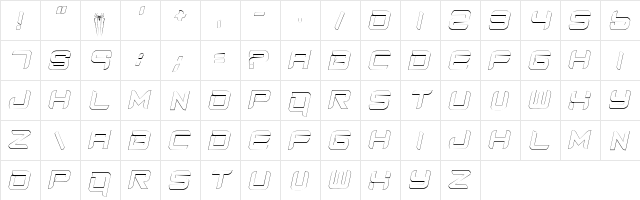
Amazing Spider-Man toile slant Regular
| Foundry | P. A. Vannucci |
| Designer | P. A. Vannucci |
Design Context for Amazing Spider-Man toile slant Typeface
Amazing Spider-Man toile slant is a composed and adaptable typeface that performs quietly and consistently across a wide range of design contexts.